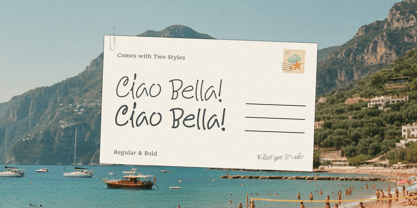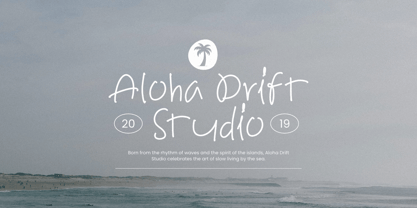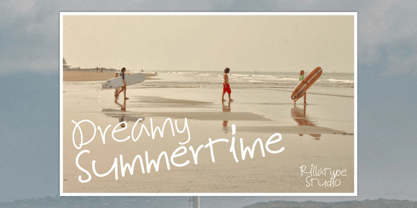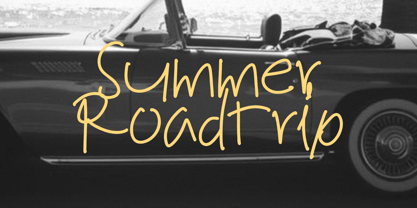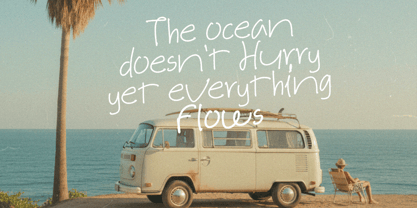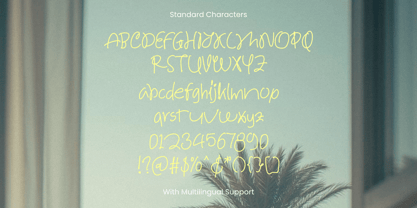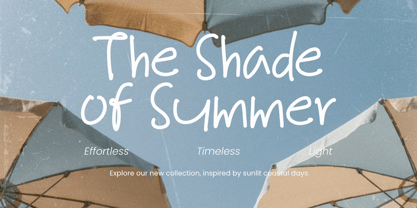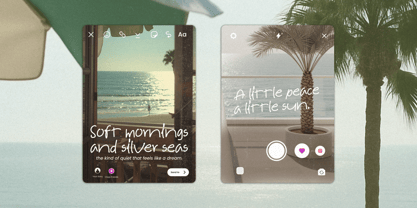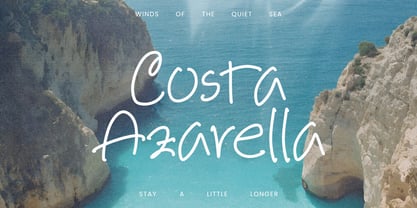
Dreamy Summertime
by Rillatype
The Dreamy Summertime Font Family was designed by Gustian Agung Asprilla and published by Rillatype. Dreamy Summertime contains 2 styles and family package options.
Dreamy Summertime is a playful handwritten font that captures the warmth and carefree spirit of sunny beach days. Its smooth strokes and organic flow bring a natural sense of joy, making it perfect for summer-themed projects, travel journals, posters, and lifestyle branding. The casual yet radiant style of this font evokes a nostalgic feeling, just like footprints on the sand and laughter under the sun. This font comes in two styles: Regular and Bold, allowing for versatile use in both light and standout designs. Dreamy Summertime ensures compatibility across all platforms and design tools. Whether you’re crafting social media visuals or branding a seasonal campaign, this font adds the perfect touch of handwritten charm and warmth. Thank You